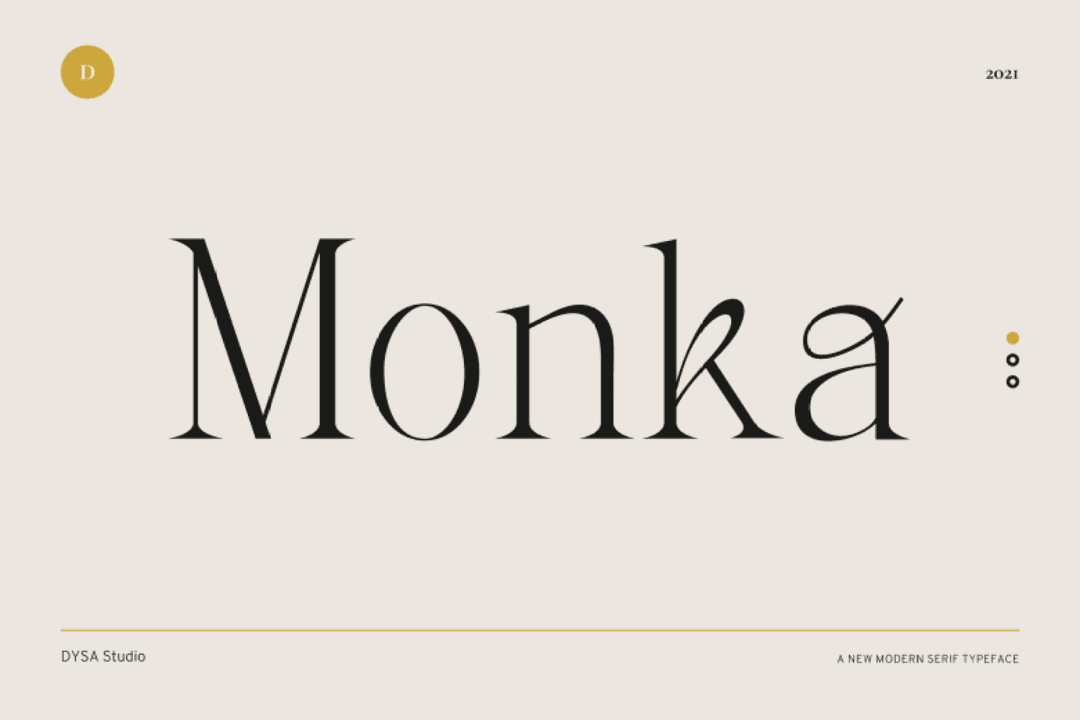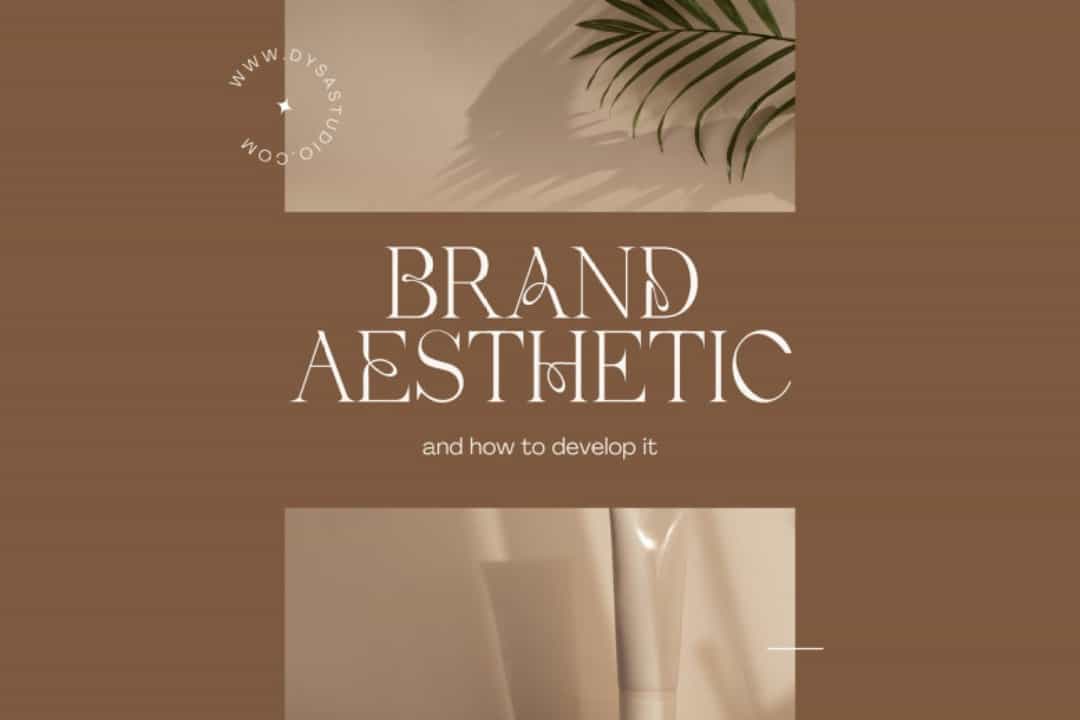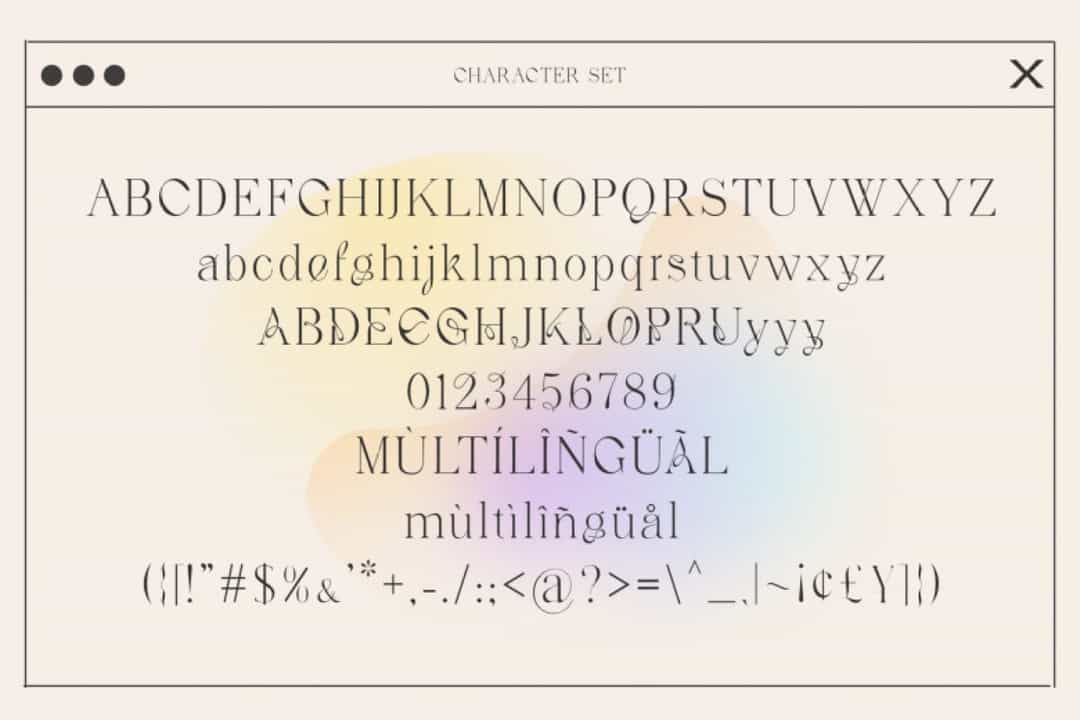
Monka is an elegant serif font perfect for branding and business use, featuring clean simple elegance and beauty! Perfect for branding purposes or anyone seeking modern, clean simple elegance in their font selection!